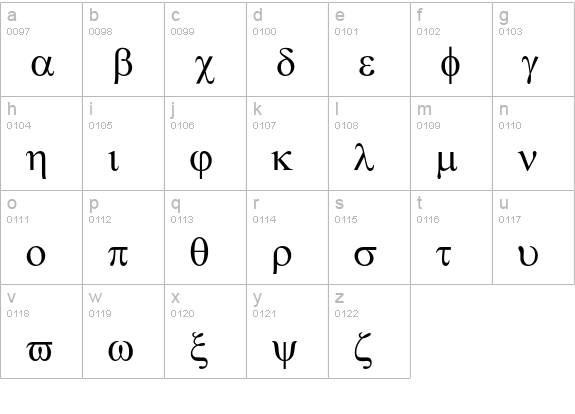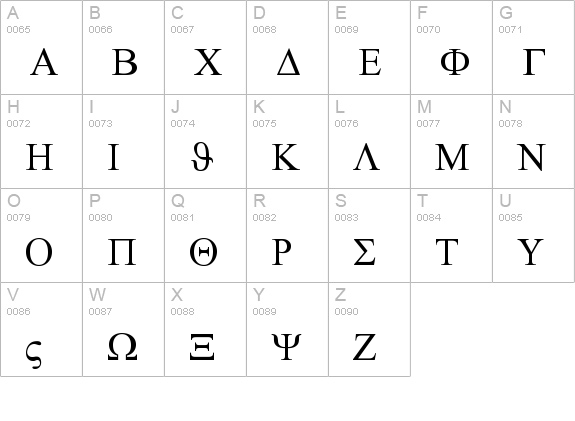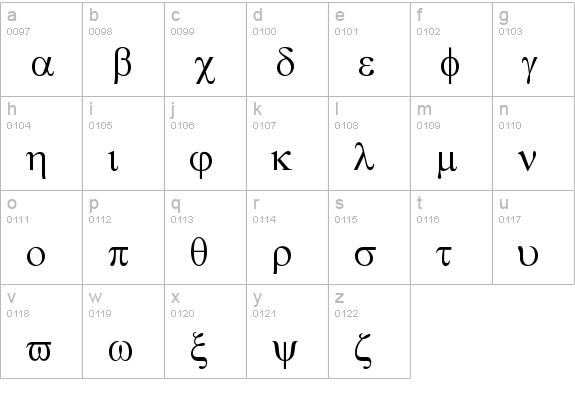
Symbol Set Font Details
Symbol Set font is a versatile and unique typeface that offers a wide range of symbols and icons for various design projects. From arrows and emojis to weather symbols and geometric shapes, Symbol Set font has everything you need to add a touch of creativity to your designs. This font is perfect for graphic designers, web developers, and anyone looking to enhance their projects with eye-catching symbols. The best part? Symbol Set font is completely free to download at FontsMarket.com. You can easily access this font and start using its wide range of symbols in your projects without any cost. With Symbol Set font, you can elevate your designs and make them stand out with its intricate and visually appealing symbols. Download Symbol Set font today and let your creativity shine!